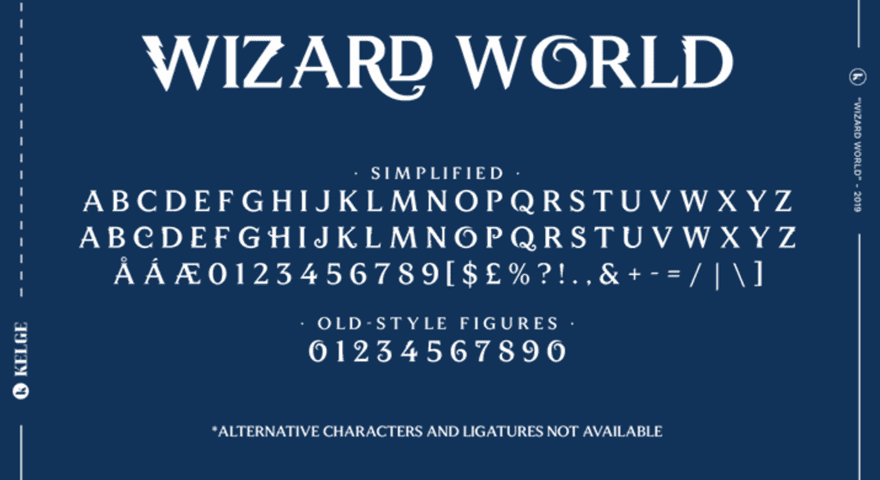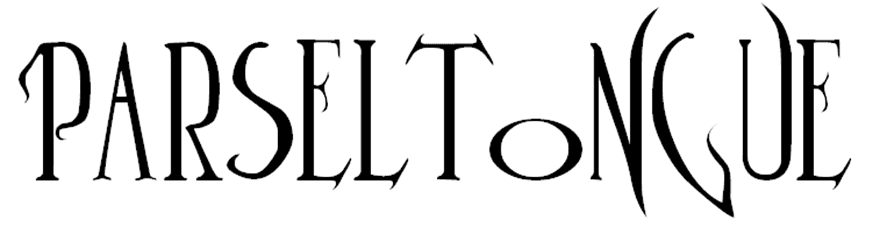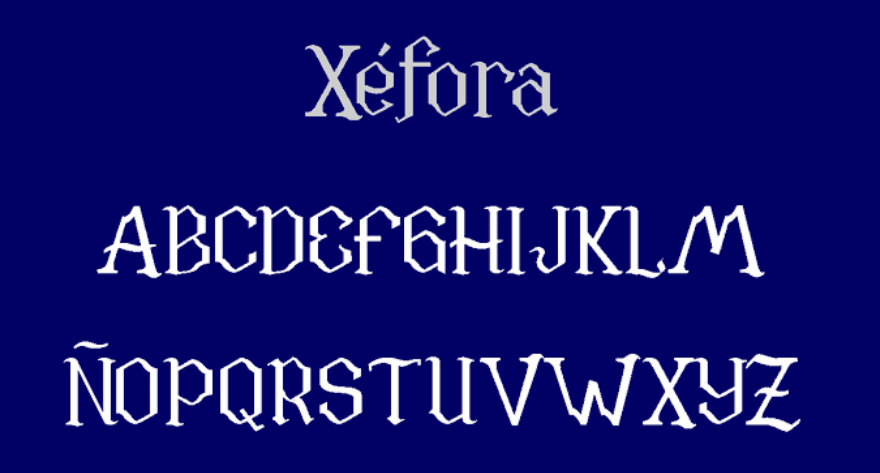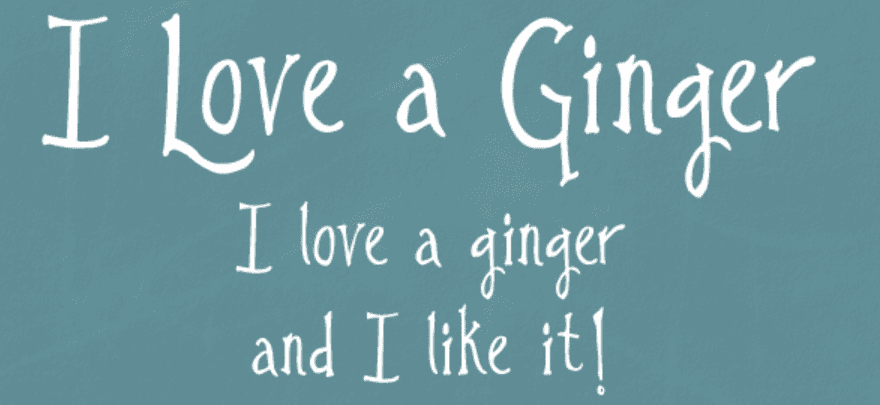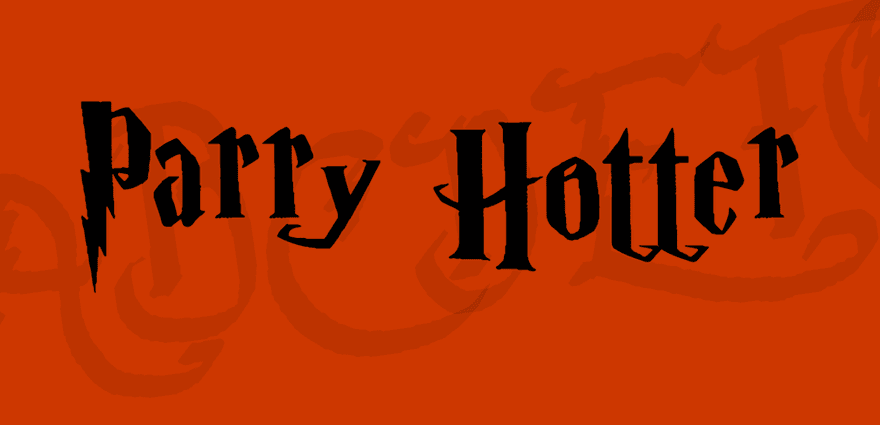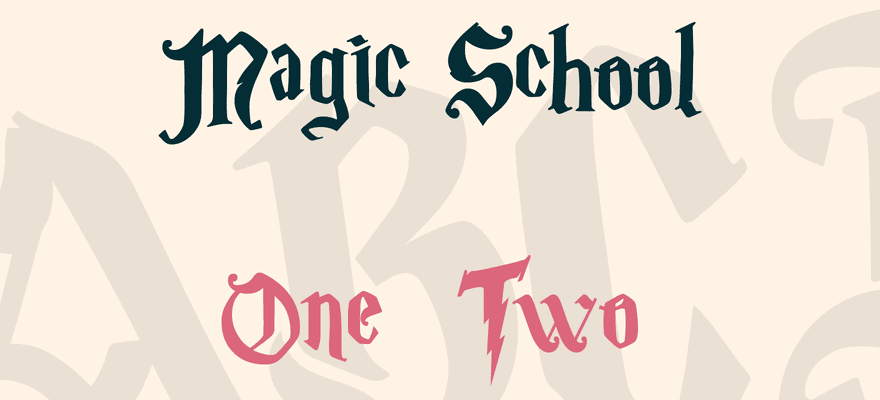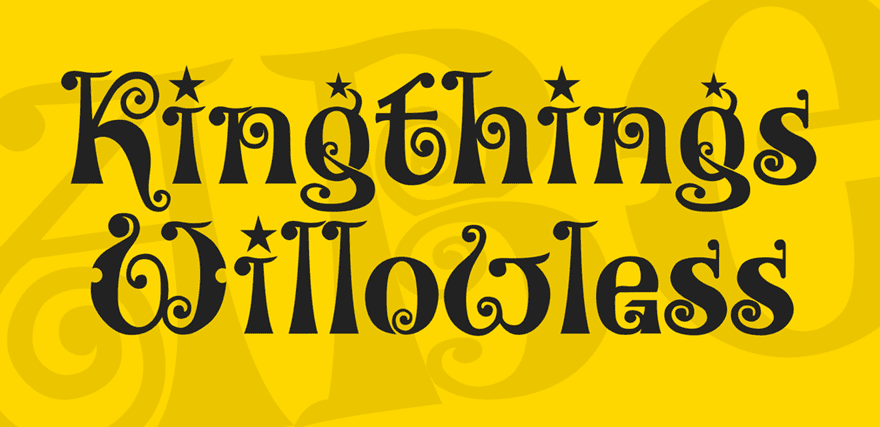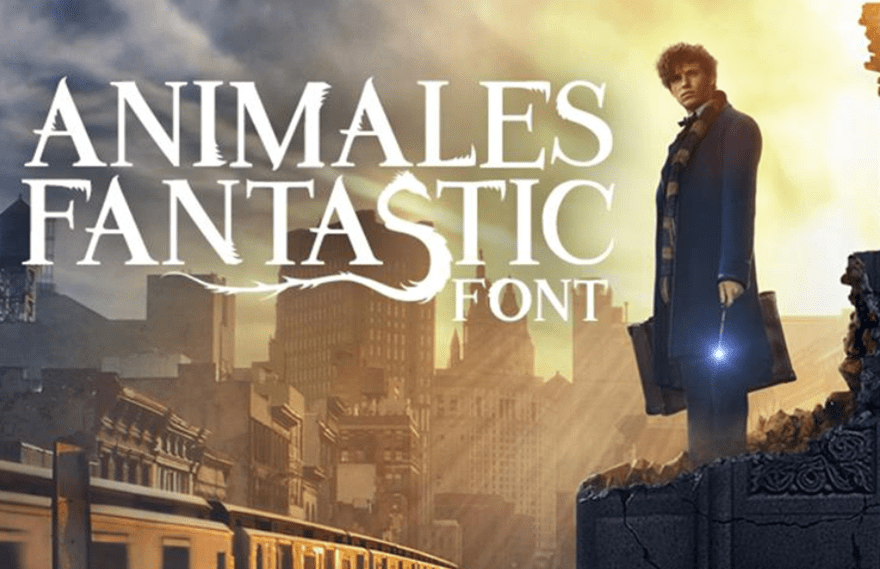
Sometimes a project just needs a little extra magic. That’s why we’ve put together a round-up of the top free Harry Potter-inspired fonts that we could find. From elegant and enchanting to scribbled and scrawly, these Harry Potter fonts will elevate your design more than if you cast wingardium leviosa.
1. Wizard World
Starting the list off strong, Wizard World is what a lot of people want in a Harry Potter font. It’s elegant, legible, and made for headings and sections. The download includes old-style figures with more flourishes and a simplified version that you can mix into it for a less flashy style. If you are in need of a fairly traditional Harry Potter font, this isn’t a bad place to start.
2. Romance Fatal Prima
Your project might not need something that’s specifically full of that Harry Potter magic, but instead, you want it to only evoke the feeling of the wizarding world, Romance Fatal Prima might be what you’re after. With a handwritten feel with slightly irreverent and whimsical kerning and tracking, this font is not your typical choice. Available for free for personal use, but with commercial licensing, you have a full set of characters to perform whatever magic you need them to.
3. Parseltongue
Not quite as curvy and slithery as one might expect from the snake-language its named after, Parseltongue nonetheless provides the right feeling for anyone wanting to add a bit of pizzazz to their work. Sharp edges and accents, and just enough curves to evoke its namesake. The spacing is delightfully even, despite having so many offshoots. That lets the script look elegant and magical, while still obviously not being totally part of the mundane Muggle world.
4. Xéfora
Xéfora is an exotic name for an exotic font. And one that you will want to add to your library immediately. Free for personal use, and requiring a donation for commercial projects, the font comes in upper- and lower-case variants and would be right at home in a spellbook as it would be on a party flier or wedding invitation. Regardless of your end use, Xéfora is worth a download for anyone looking for a Harry Potter font or two.
I Love a Ginger
Perhaps our favorite font on the list simply because of the name, I Love a Ginger is delightful and worth falling in love with in its own right. Like Hermione and Ron or Harry and Ginny, some things just go together. And this font’s characters and glyphs are no different. They will spice up your designs, adding whimsy and a hand-written feel, on top of giving the entire project a little warmth. Just looking at this warm and inviting font wishes we were curled up in the Burrow with our favorite family of gingers.
Harry Potter and the Dingbats
Dingbats (and wingdings) are fonts that use images as characters instead of normal letters, numbers, and symbols. These images are used as fonts for scaling purposes, keeping the image or logo clear at all sizes. That’s what this font is for. If you need a logo or quick image of something from the Potterverse, check out these dingbats.
Parry Hotter
Maybe the most traditional of the Harry Potter fonts on our list, Parry Hotter is released as shareware for everyone’s enjoyment. Mimicking the HP movie post font incredibly well, Parry Hotter has a lot going for it. We do offer the advice, though, of using it for headings and titles and that sort of thing only. When this font is used over multiple lines, sentences, and paragraphs, it is incredibly hard to read.
Magic School
What font round-up about a series of books that takes place at a magic school would be complete without a font titled Magic School? Certainly not this one. Magic School is probably what you think of when you hear the phrase Harry Potter font, and that alone makes it worth checking out. What makes it worth downloading is that it’s not technically just one font, but two. You get a more elegant and medieval-style of script with the Magic School One font, and the Magic School Two gives you the more magically styled characters, complete with lightning and much more pronounced accents and flourishes on the characters.
Kingthings Willowless
Kingthings Willowless is both beautiful and hard to say. Decorated with stars and swirls and flourishes that will bring joy to your viewers for sure, Kingthings Willowless is just a beautiful font. Again, this one begins to look cluttered as its used across lots of space, so keep your work short and sweet, and you’ll have your audience spellbound.
Animales Fantastic
Technically a Harry Potter font, Animales Fantastic has been designed to emulate the American-side of the Potterverse. With fangs and fur and slithering (or is that Slytherin?) tails, the glyphs in this set are just fantastic enough to earn the font its name. Generally a tame and ordinary font, the decorative flourishes on certain (but not all) characters makes this font a little more subtle than some, but still exuding the magic you’re looking for.